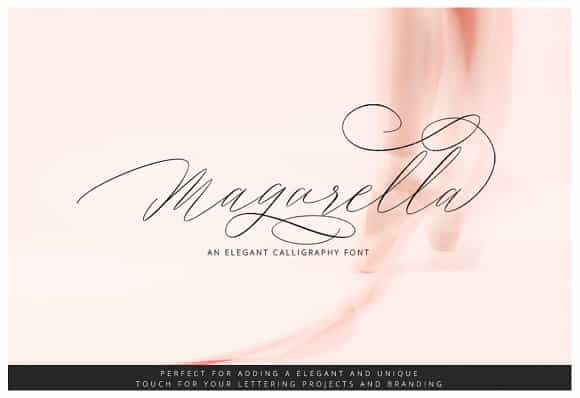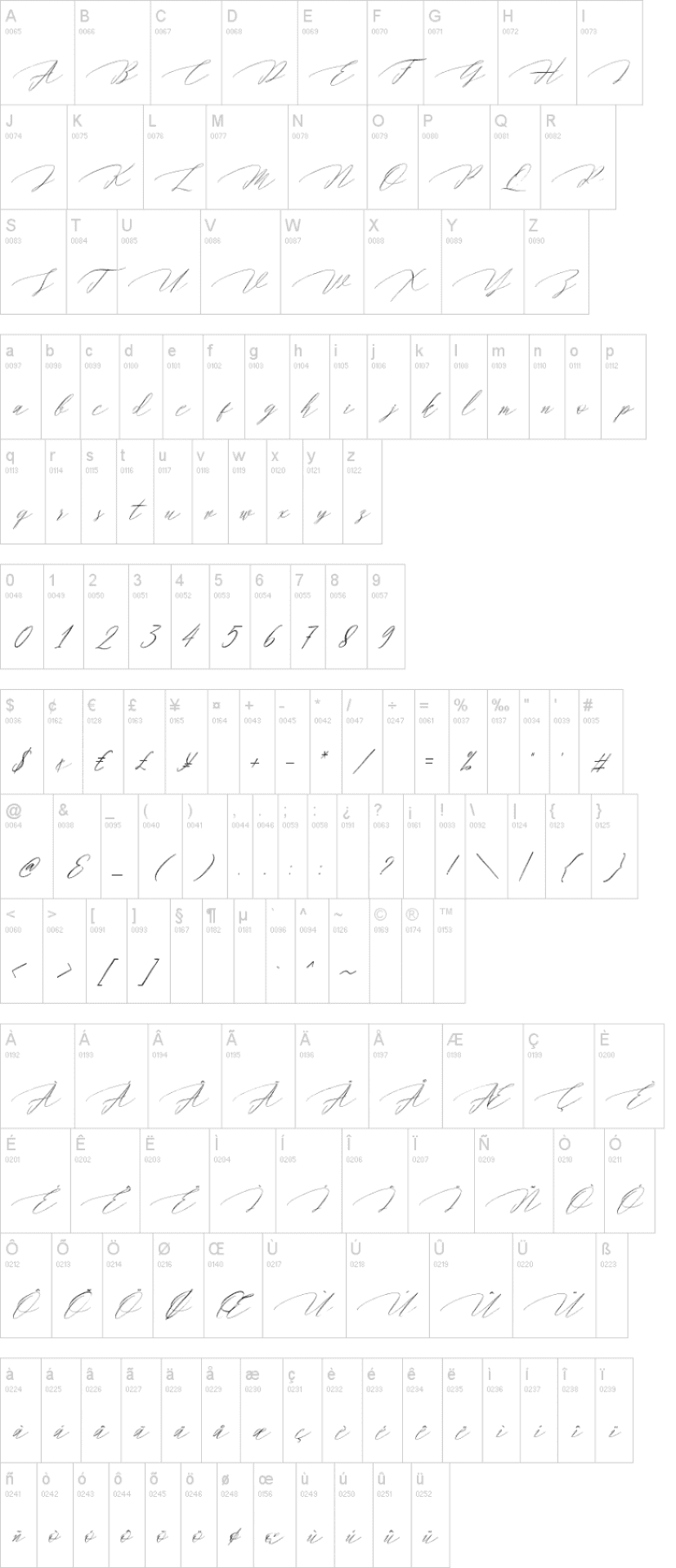
This is a calligraphy font that is named Magarella Script which is designed by Ferdiansyah and can be download for free for personal usage. The free version is capable of producing all the alphabets both capital and small and a few more special characters as well.